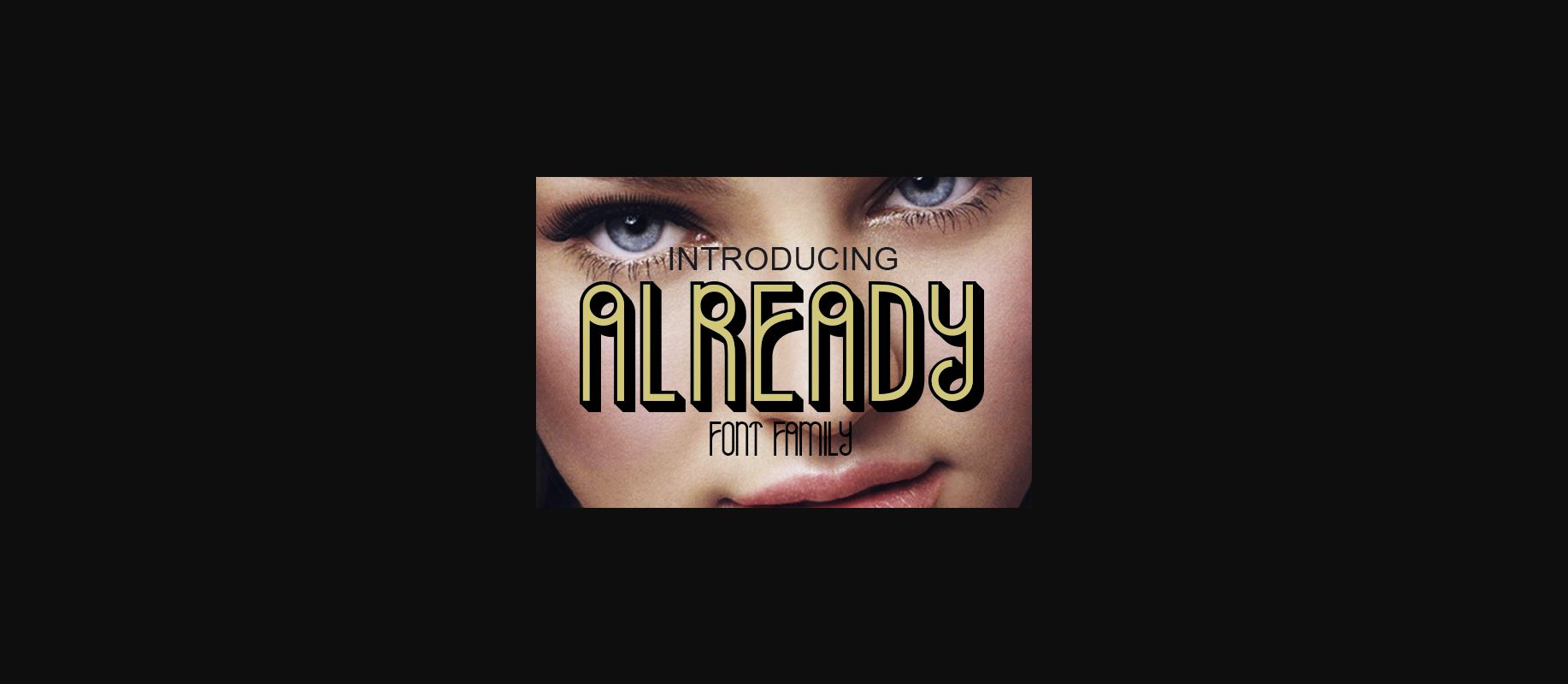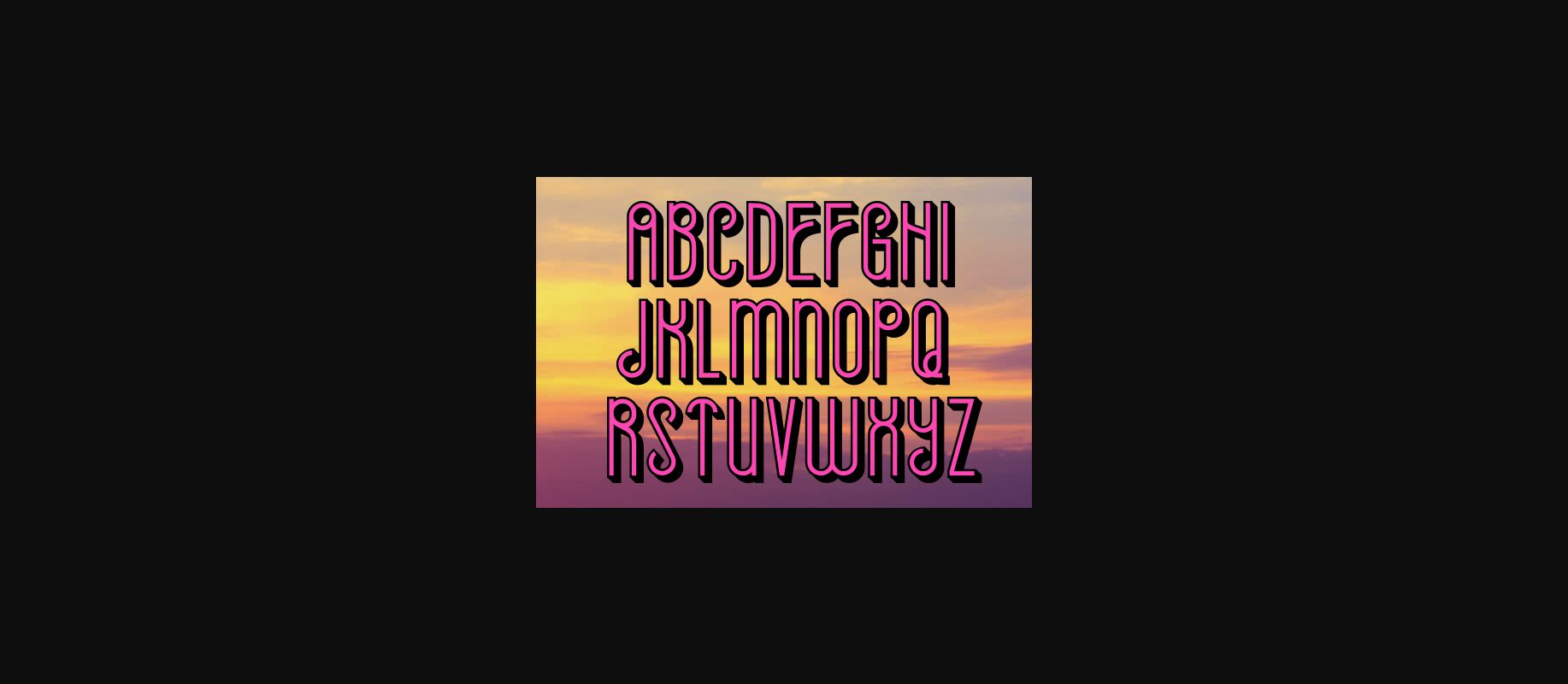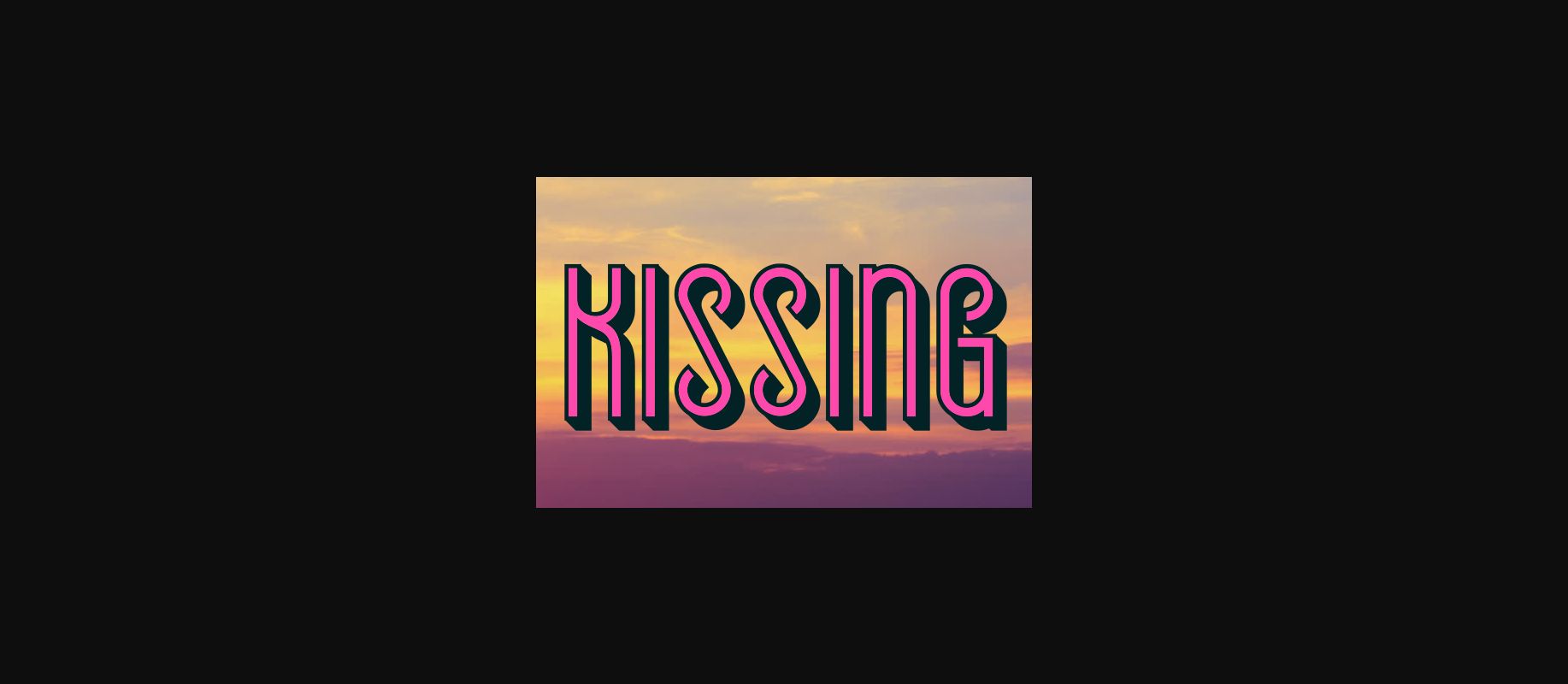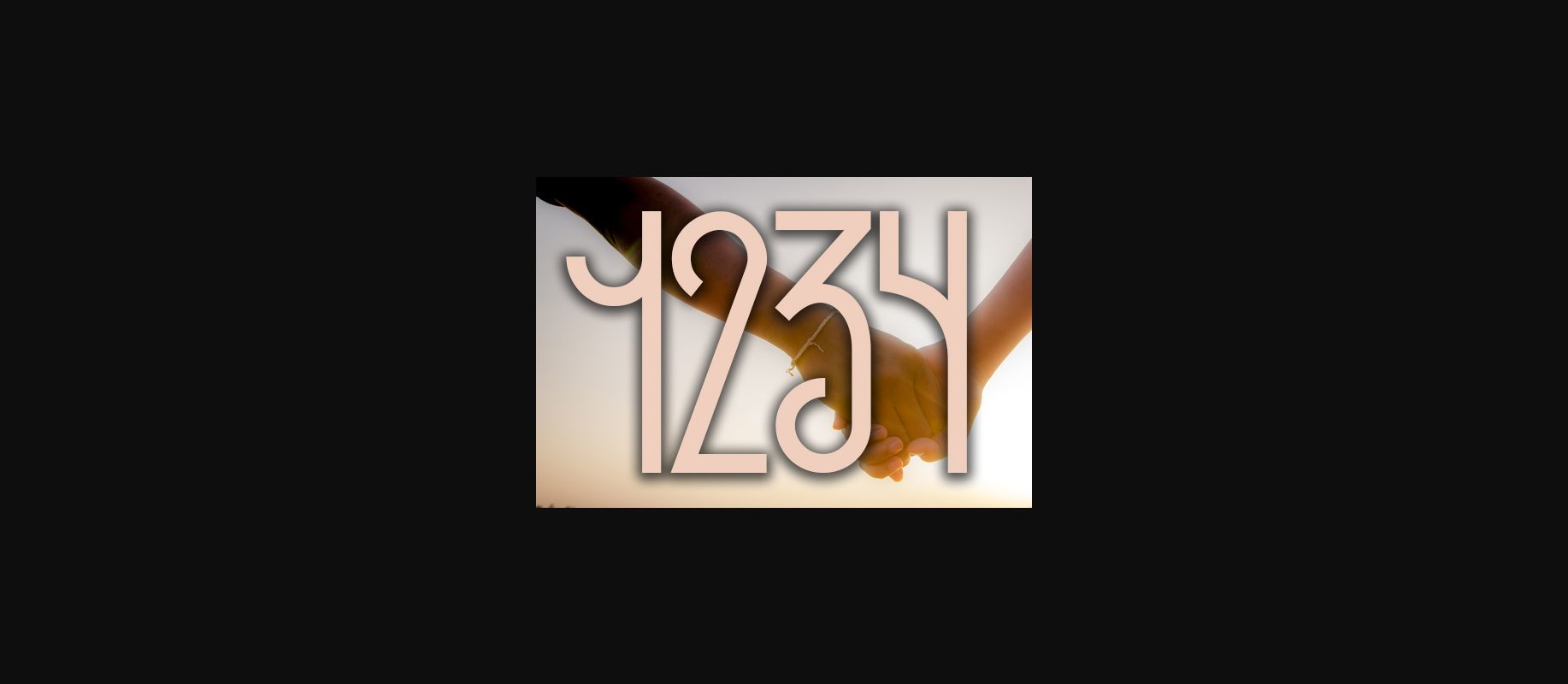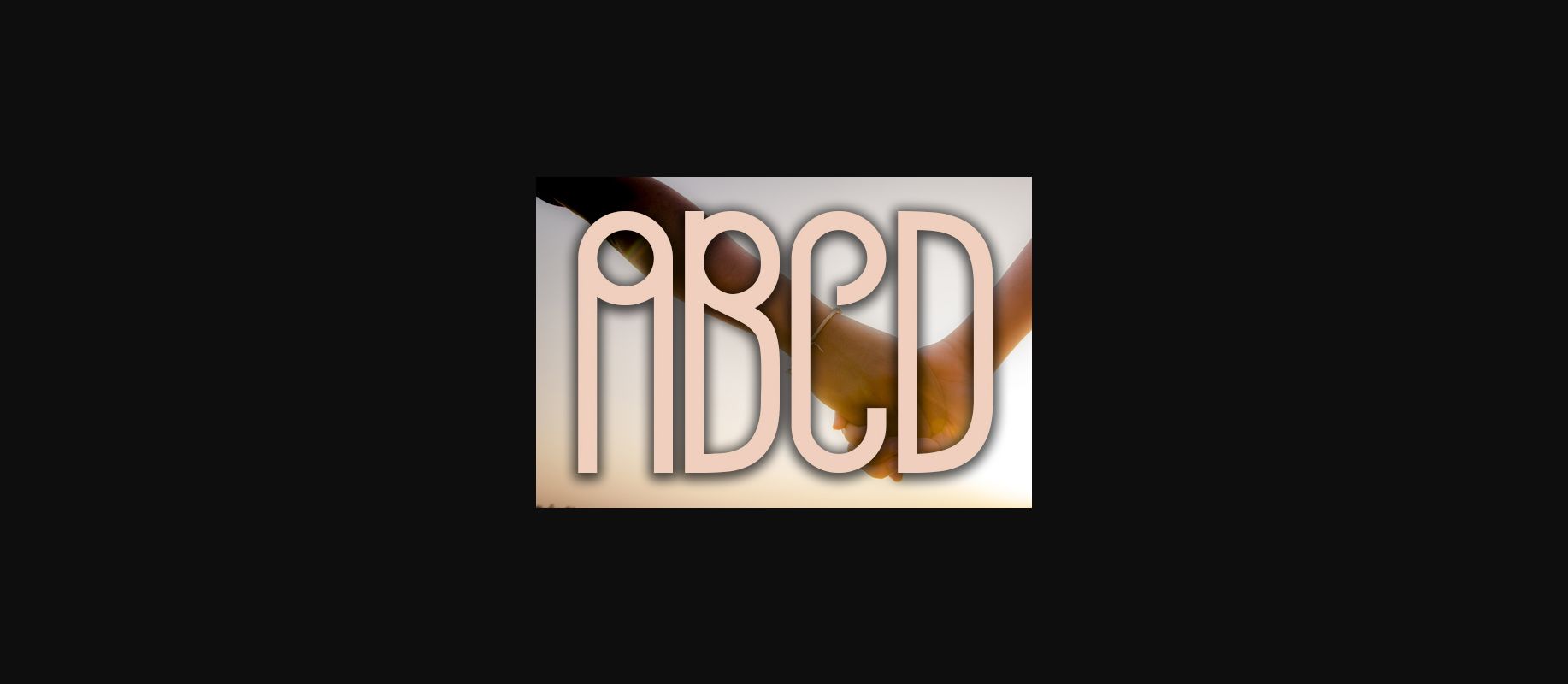
About Already Font
Already is an awesome retro font family with a bold, Art Deco feel. Get inspired by its vintage aesthetic, and turn any design idea into a stand out.